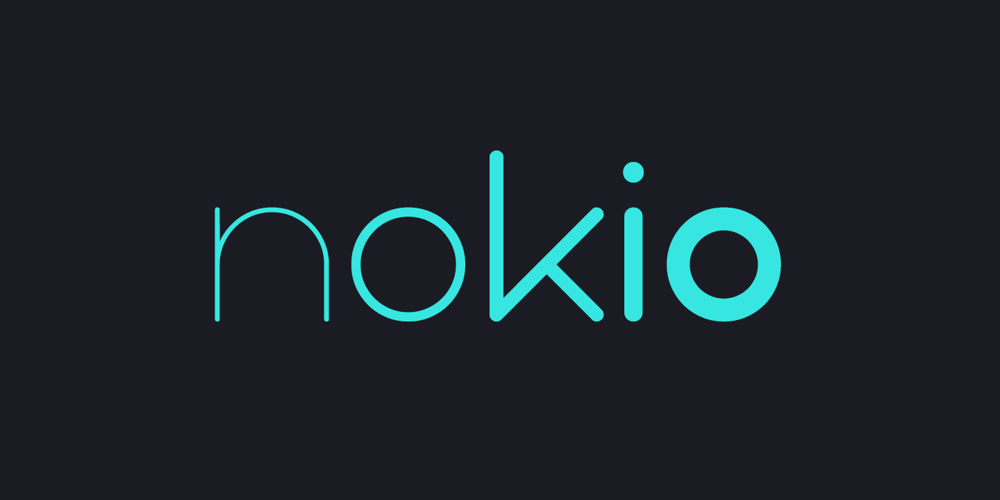
Nokio Font Family was designed by published by TypeUnion. Nokio contains 5 styles and family package options. Nokio is a clean, minimalist Sans Serif typeface designed in 2013 by TypeUnion. Nokio uses clean lines and curves matched with smooth, rounded terminals to produce a structured typeface with a subtle playfulness. Nokio is made up of 5 weights, and is built for multiple uses, from digital applications such as Apps and Websites to logotypes and print applications.